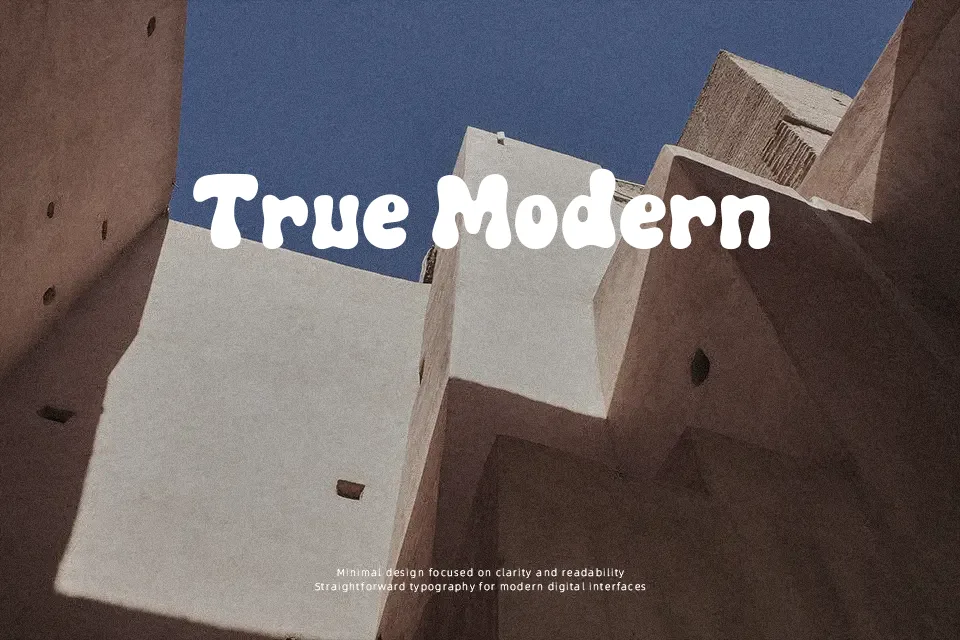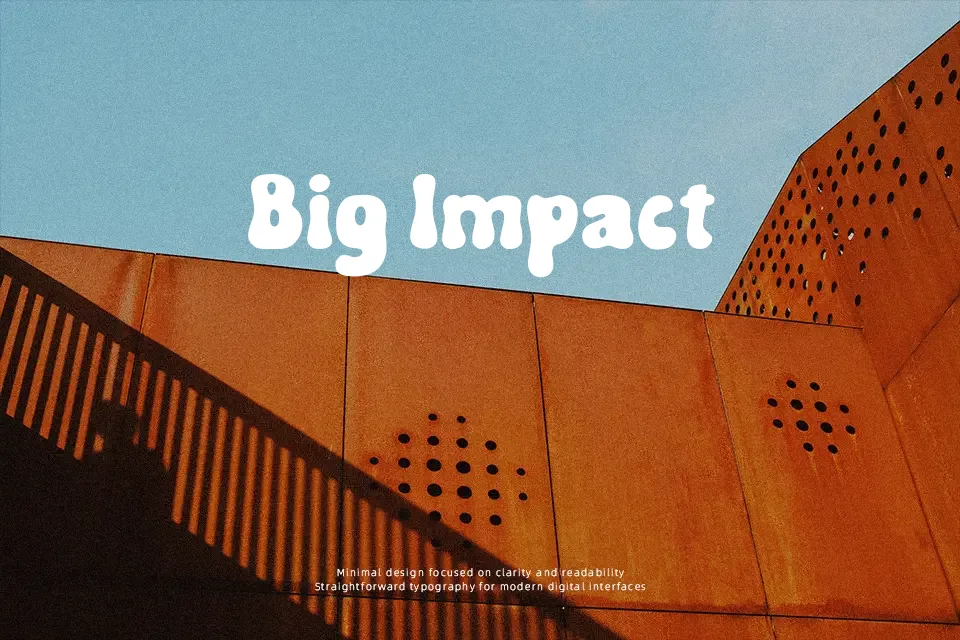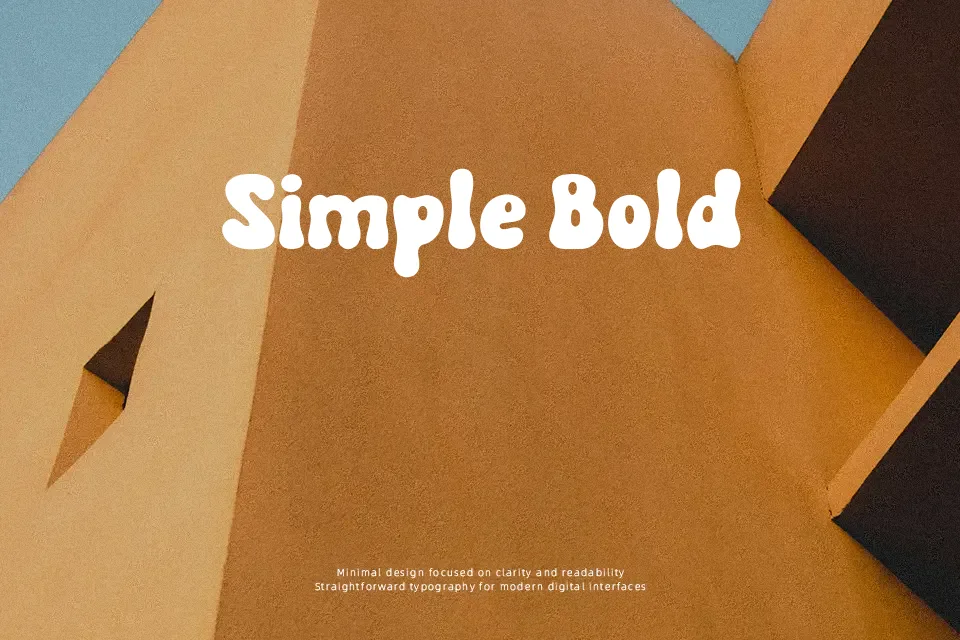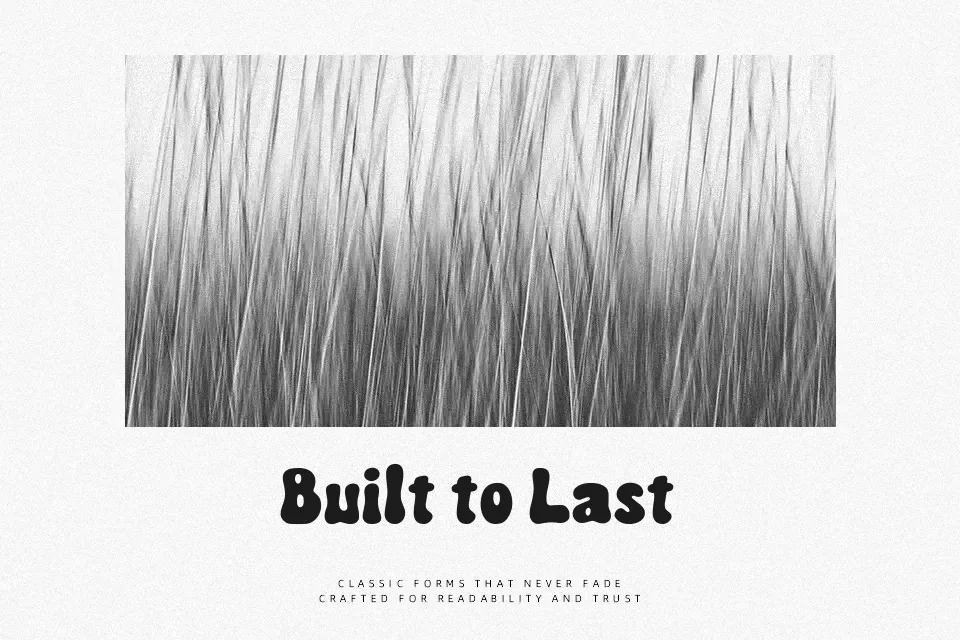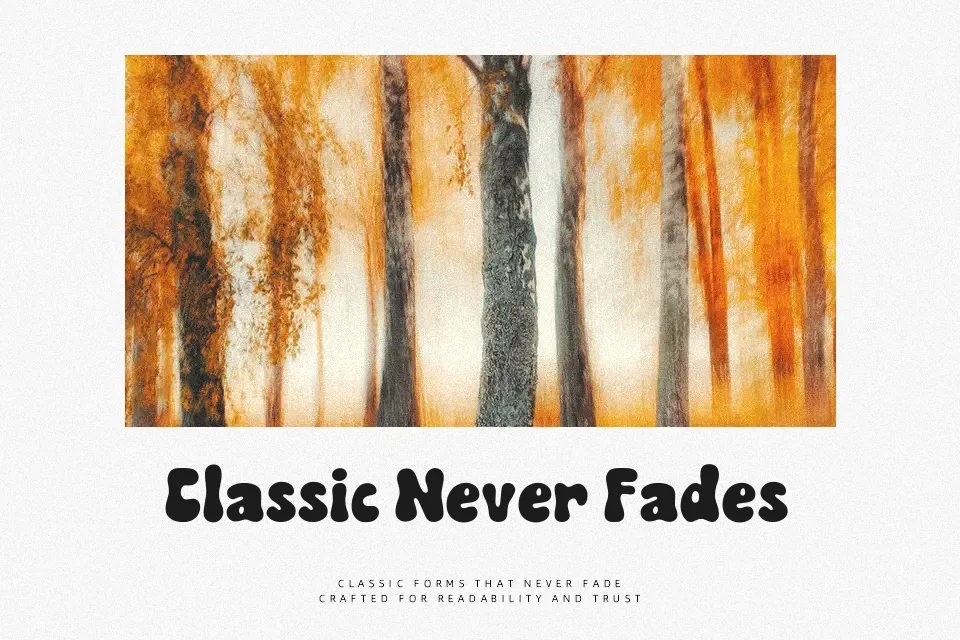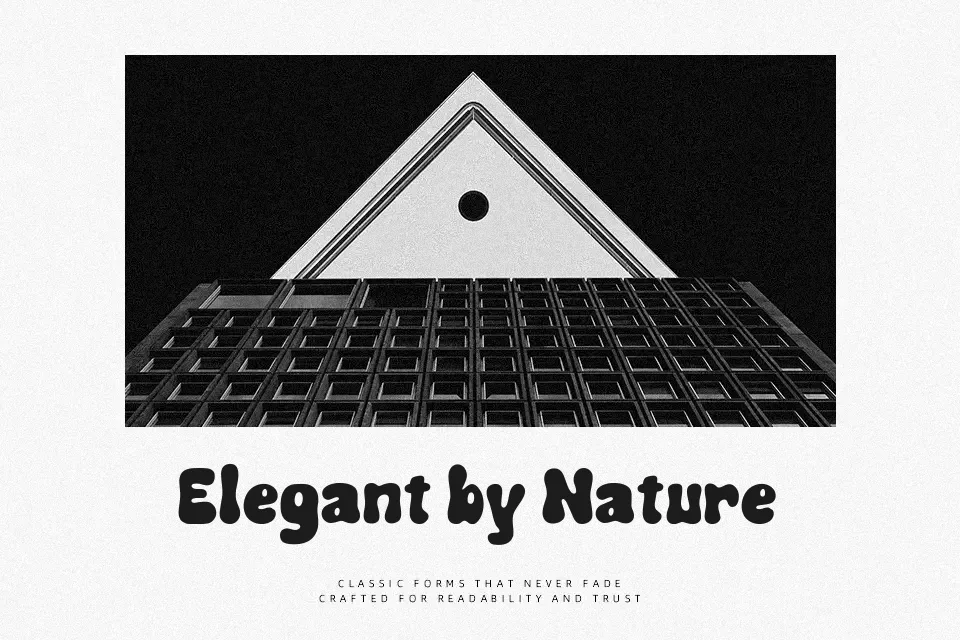
Charming Smile Font
Designed by Prioritype Co
Charming Smile Font is built around thick, organic strokes with rounded serifs and dynamic curves reminiscent of 1970s groovy lettering. The typeface exhibits substantial stroke contrast, with generous, bulbous main stems tapering into subtle teardrop terminals and compact inner counters. Across uppercase and lowercase sets, proportional widths remain fairly uniform, creating an undulating visual rhythm across short titles. Spacing is tightly packed to maximize impact at large display scales, making the design well suited for merchandise prints, sticker art, and retro food branding. However, the heavy weight and tight counters significantly reduce legibility in continuous text blocks or sub-twelve-point captions.
Best For: retro t-shirt graphics, music festival posters, food packaging labels, sticker designs
Not Ideal For: body text paragraphs, mobile app UI text, legal documents, small caption labels